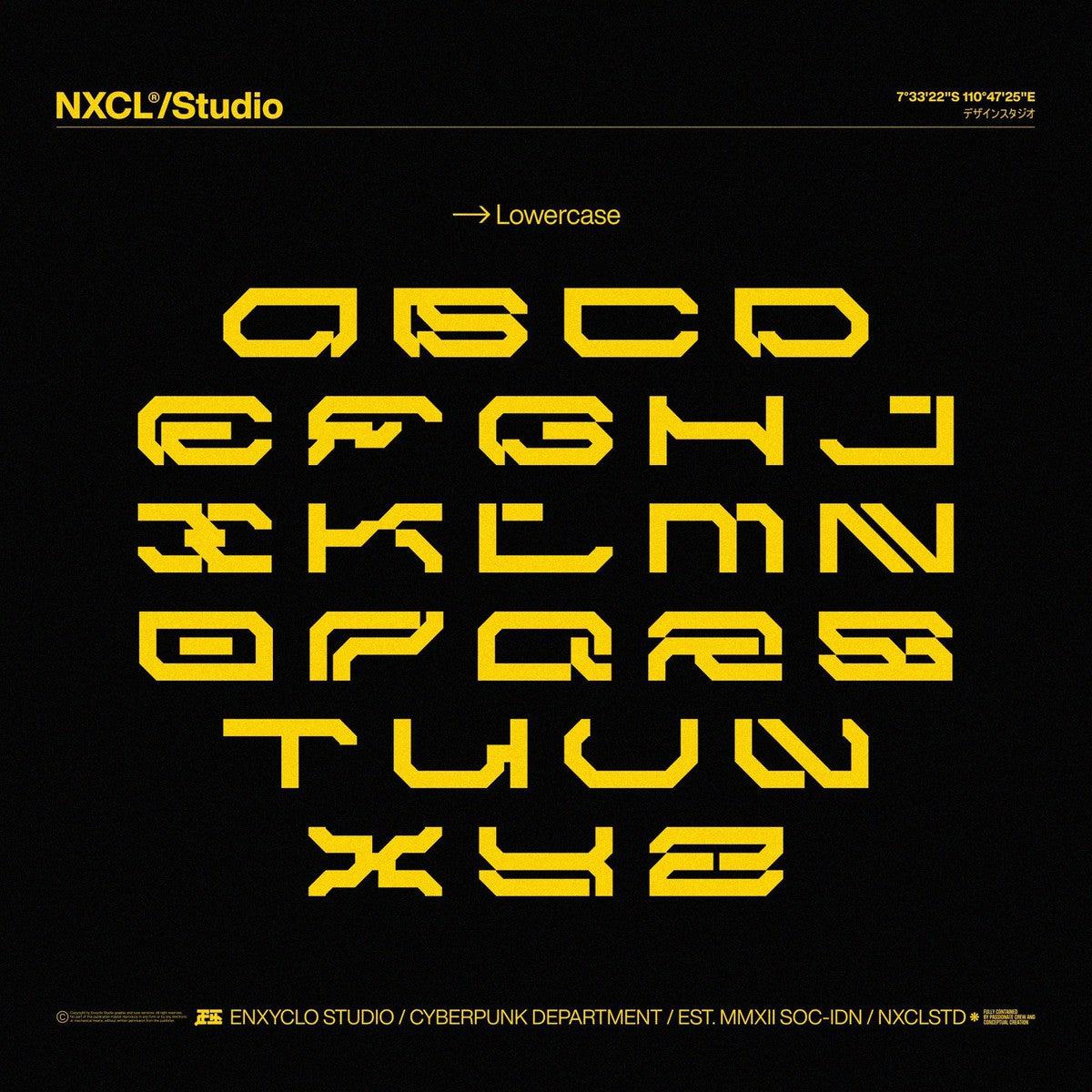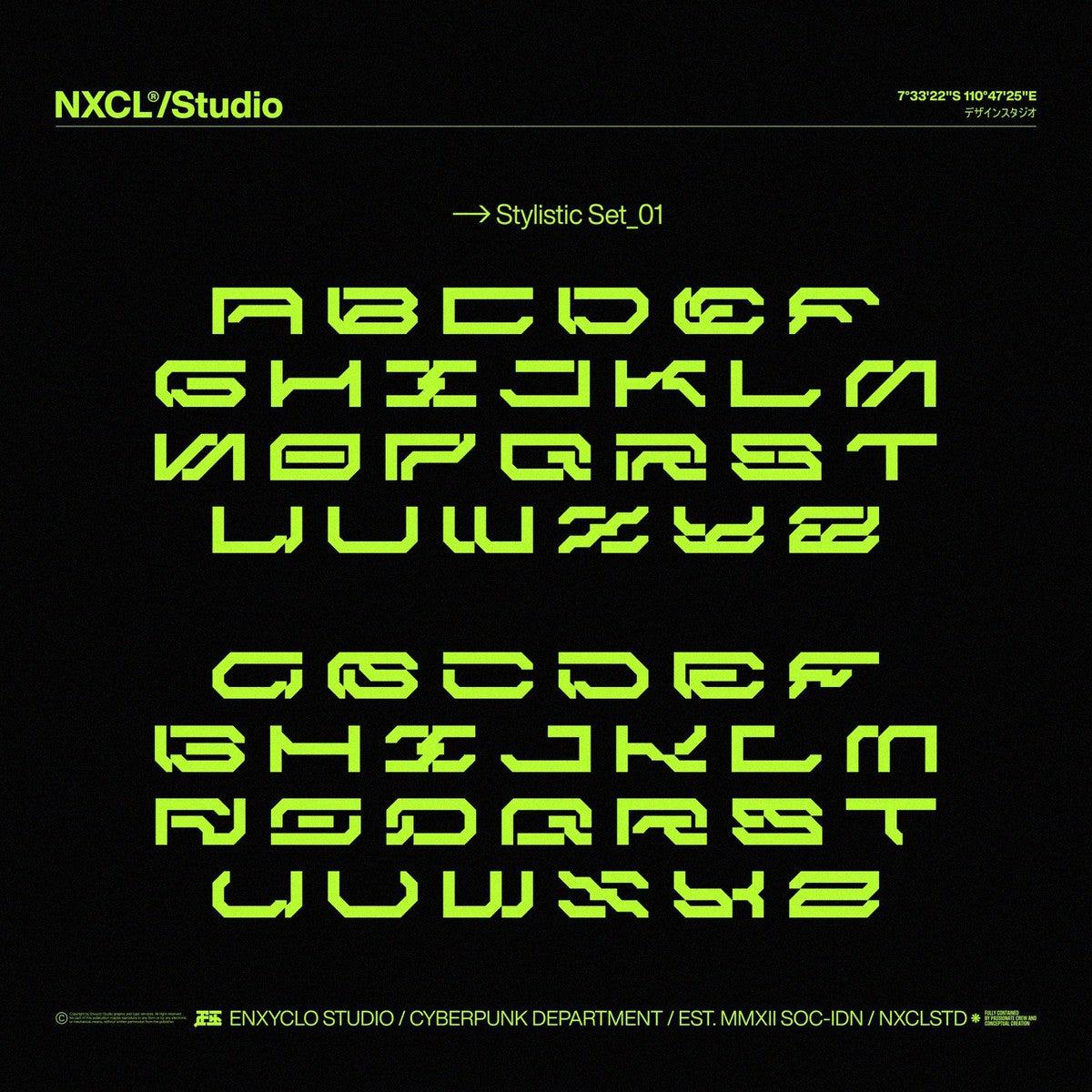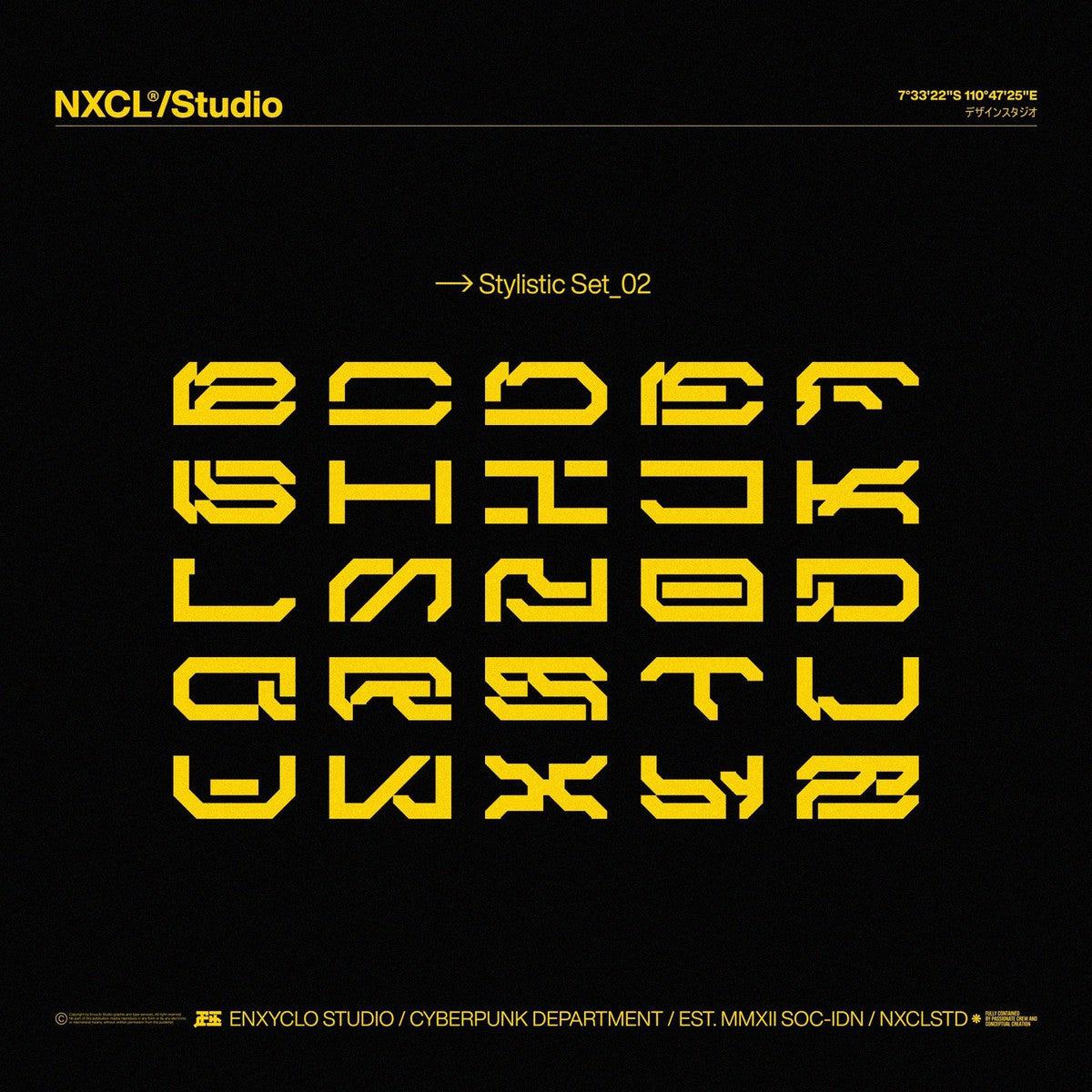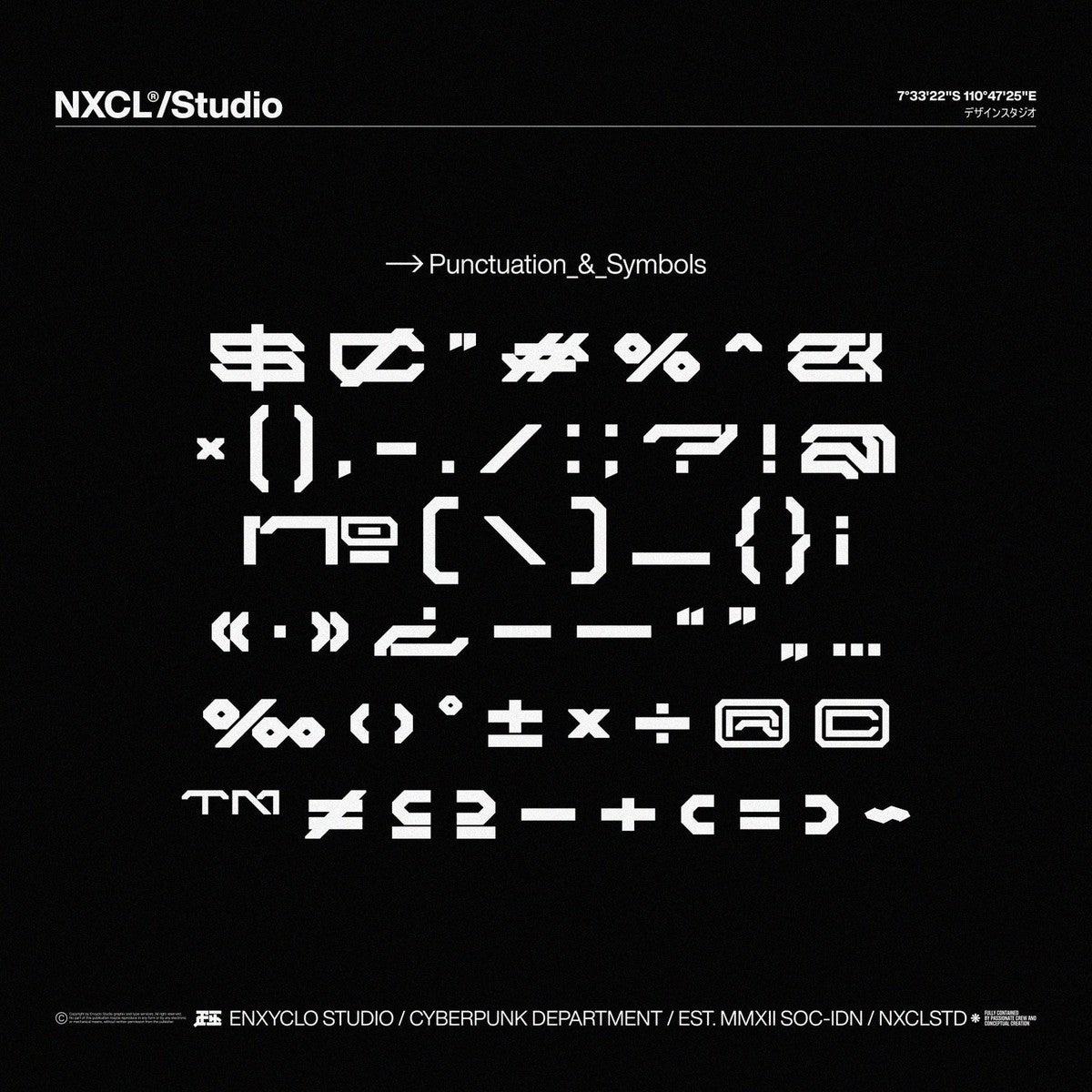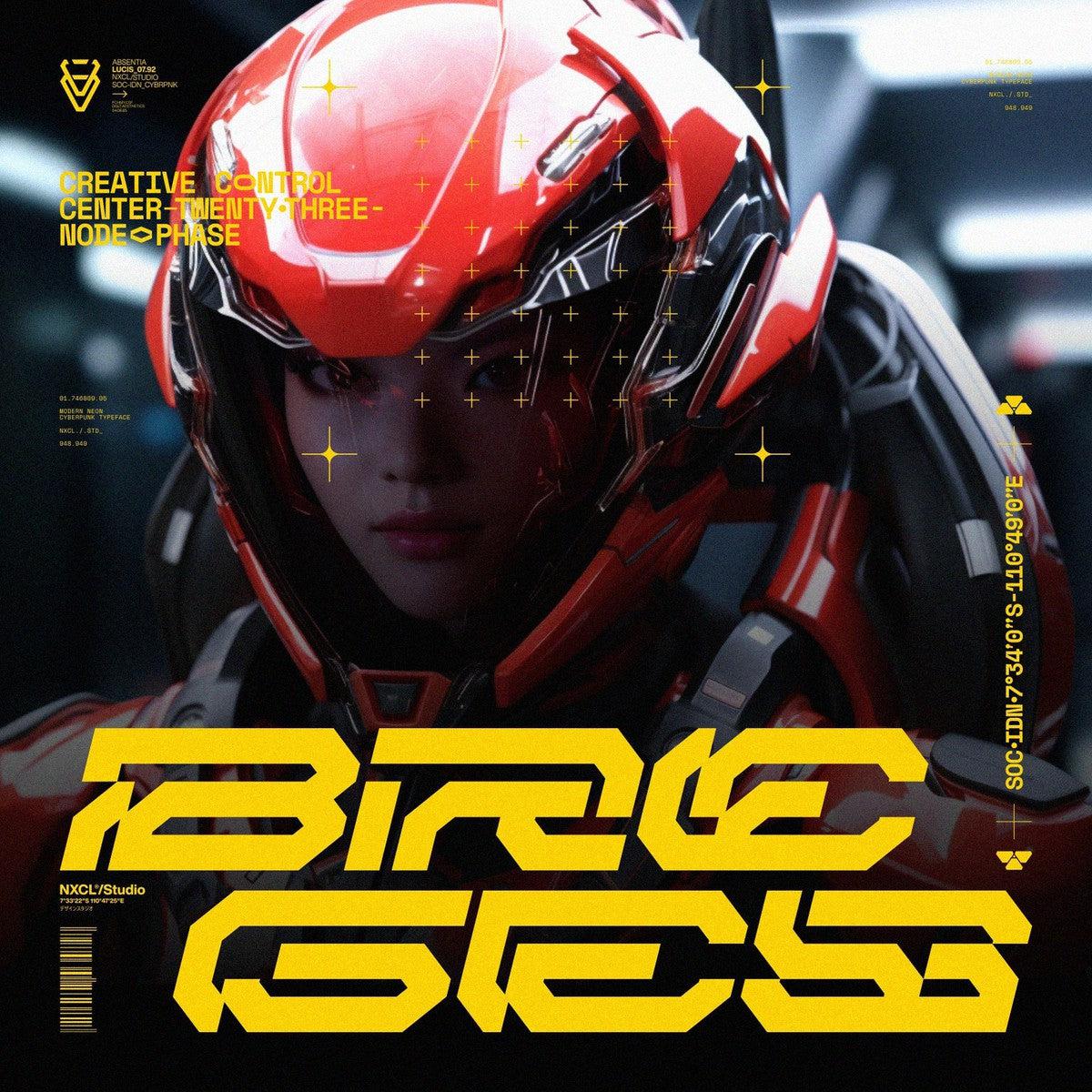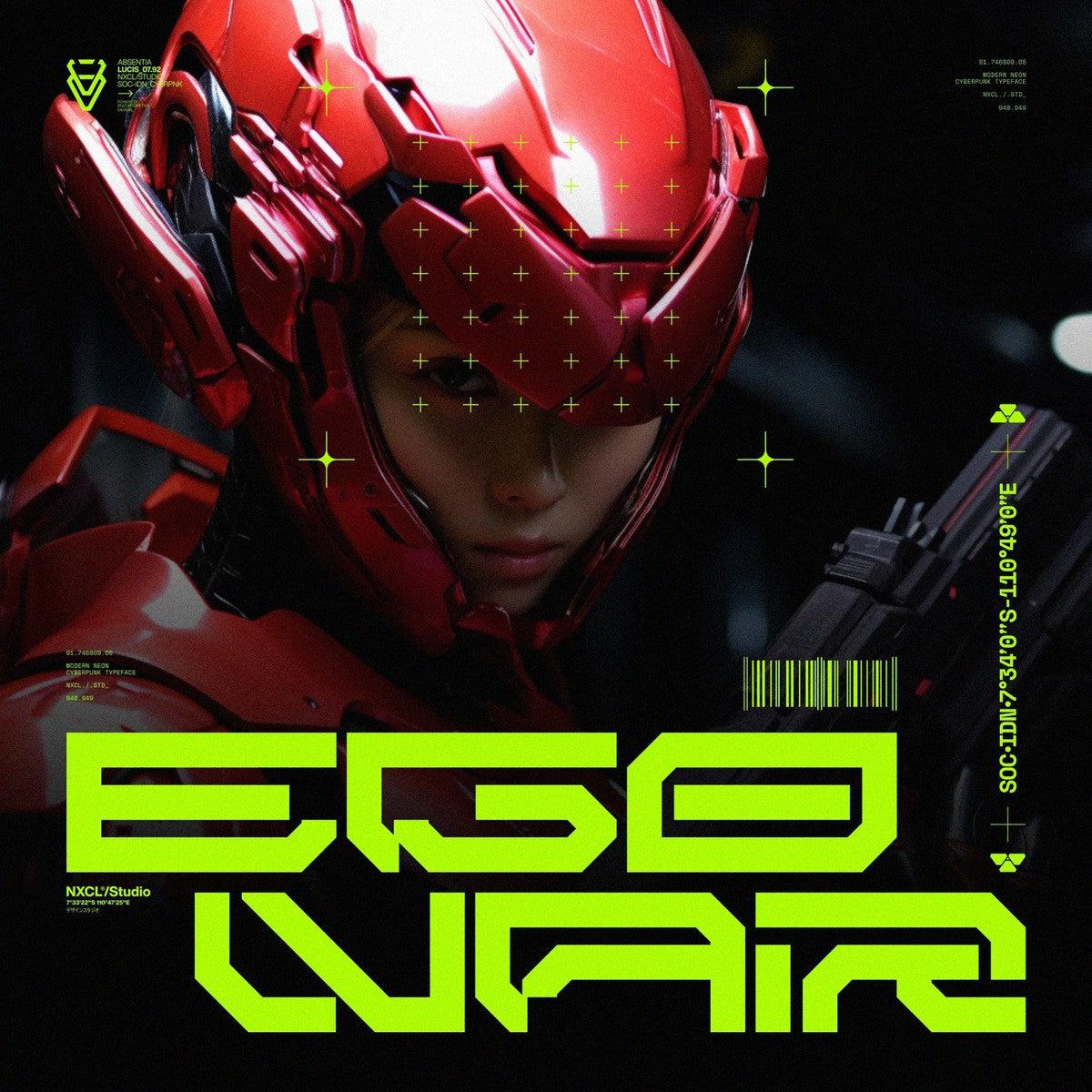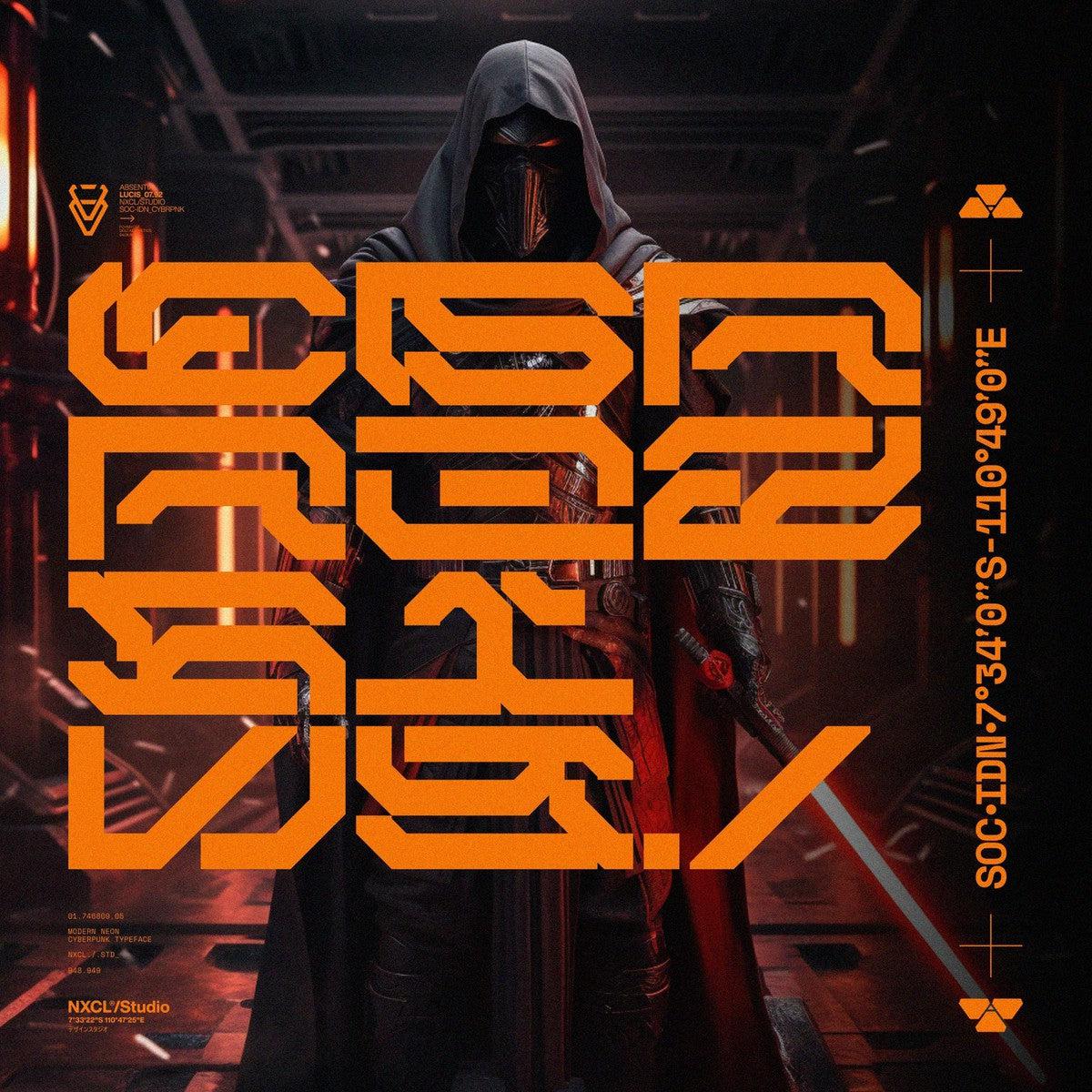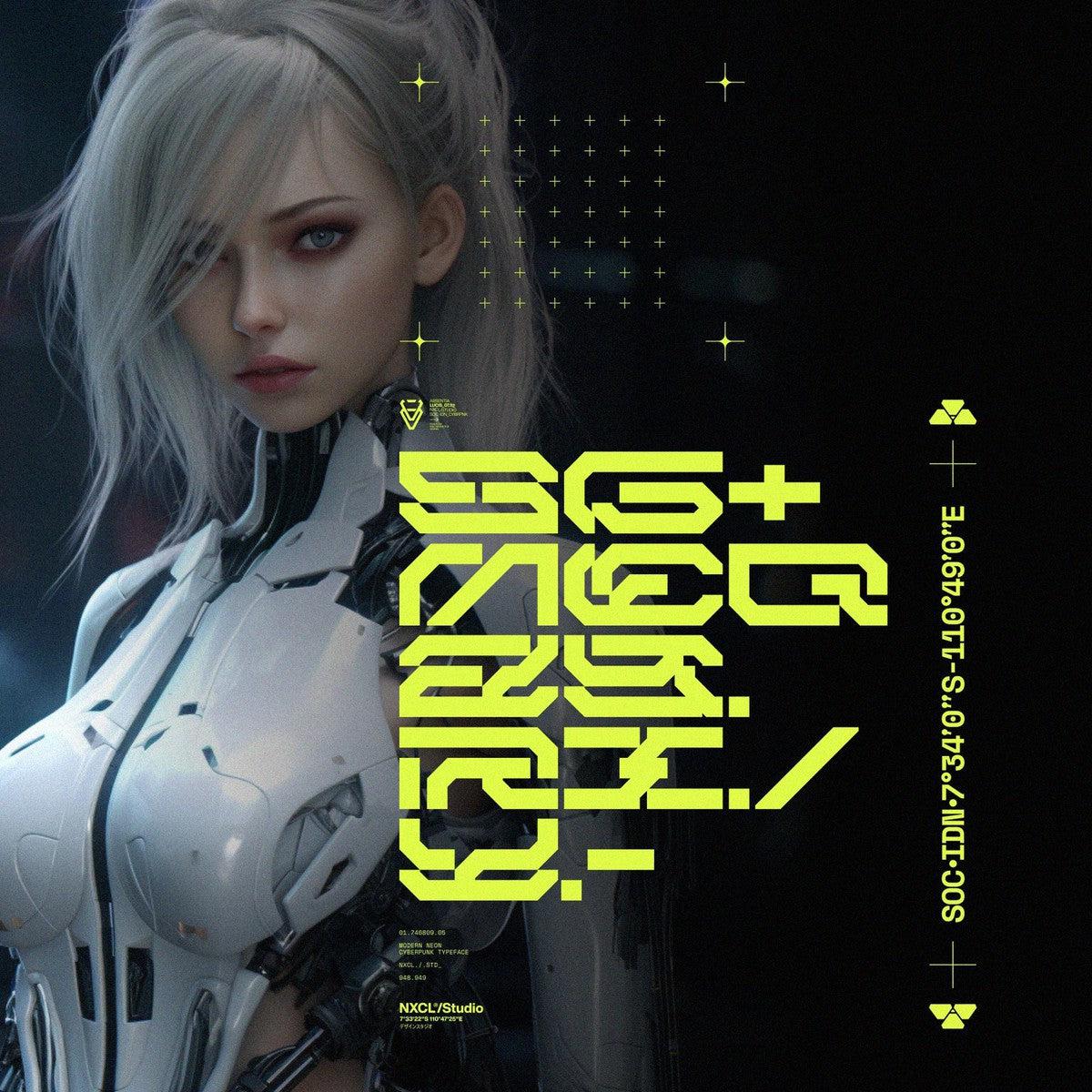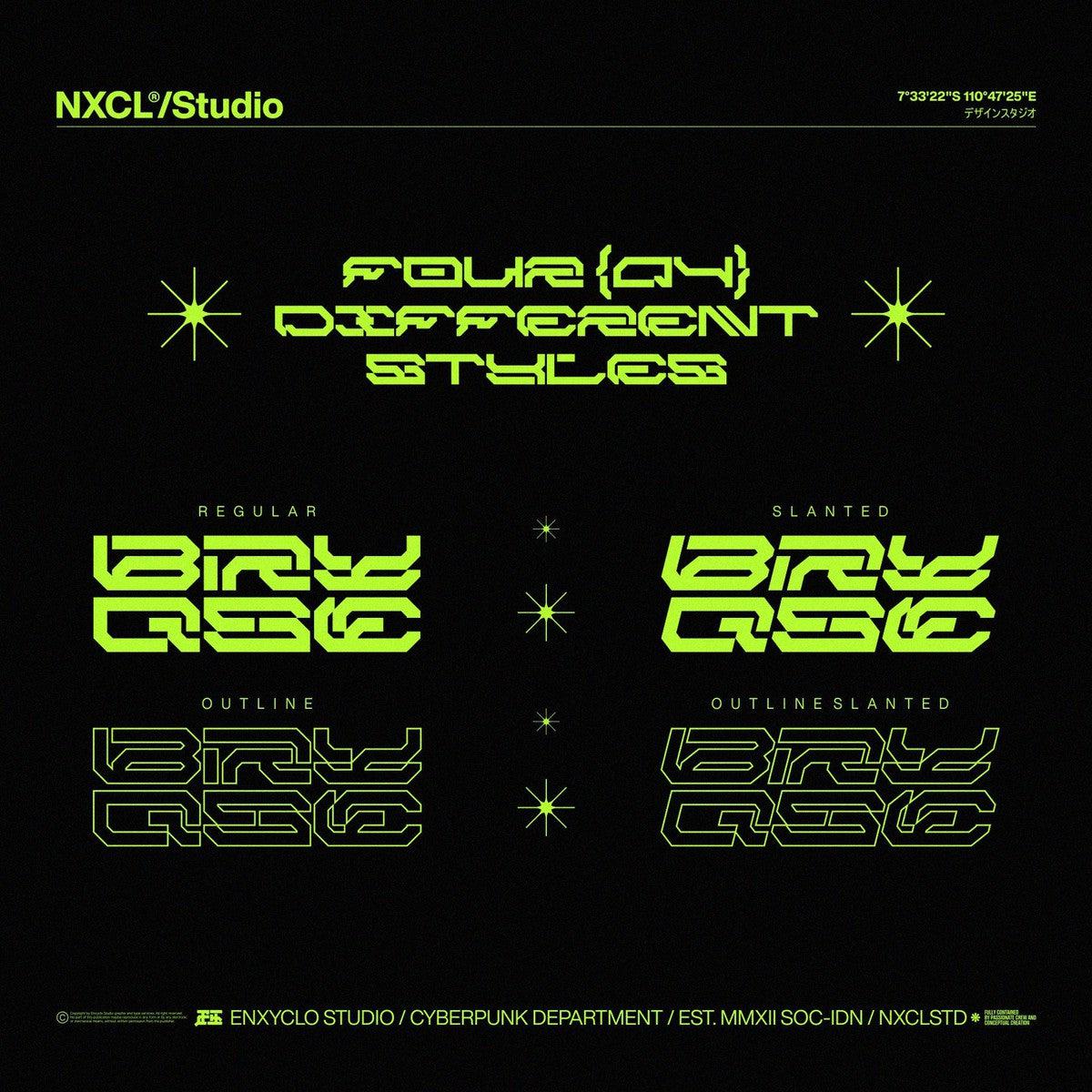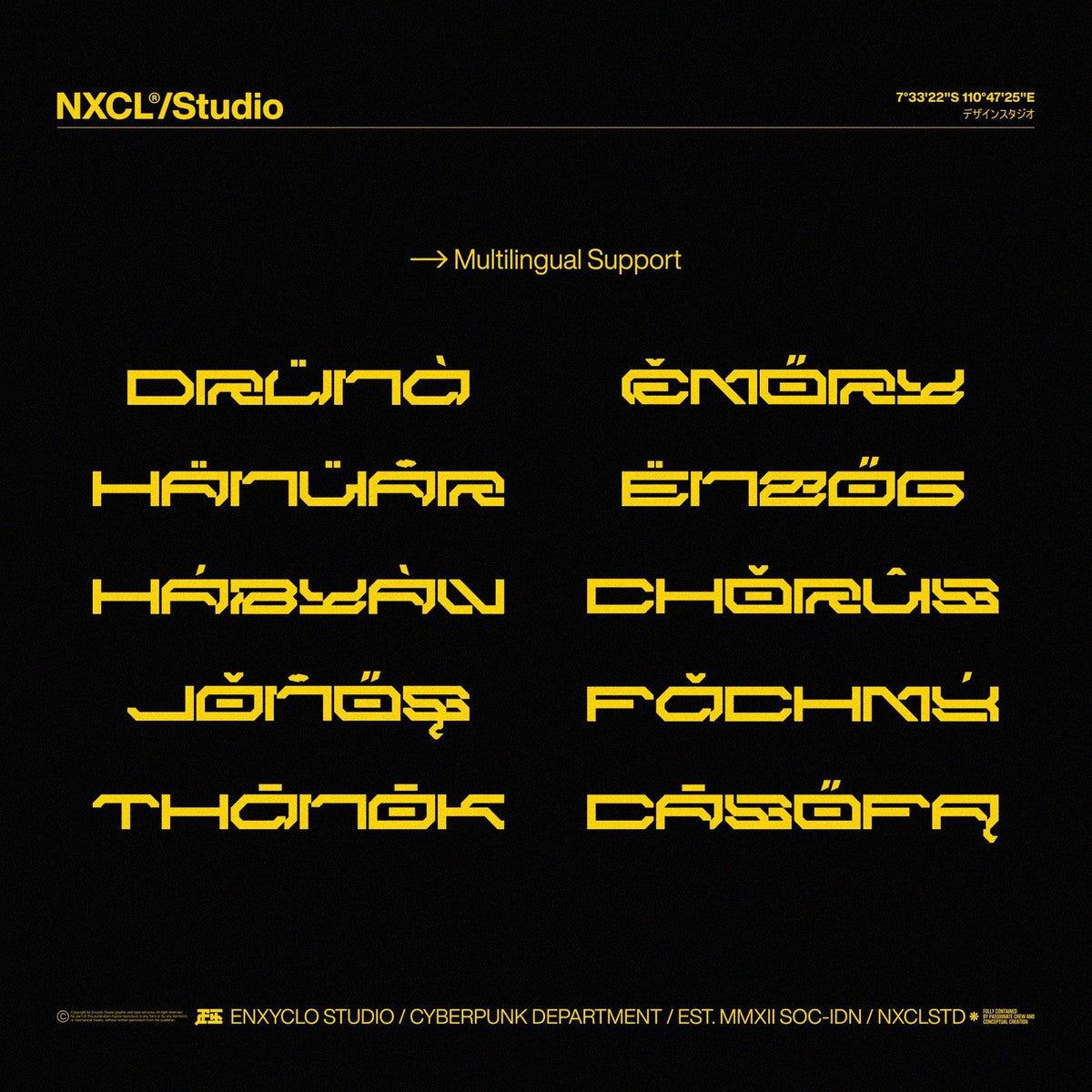
NCL BRAYQOSE - Cyberpunk Futuristic Font
BRAYQOSE
The NCL BRAYQOSE is a cyberpunk futuristic font that offers a modern techno mecha style. It includes four styles (Regular, Slanted, Outline, Outline Slanted) and supports 79 languages. The font comes in True Type Font (TTF), Open Type Font (OTF), and Web Open Font Format (WOFF1 & WOFF2), containing 437 glyphs for each style and 1748 glyphs in total.
Ideal for modern cyberpunk and futuristic design projects. Perfect for websites, posters, branding, and album covers, ensuring a unique and innovative visual impact.